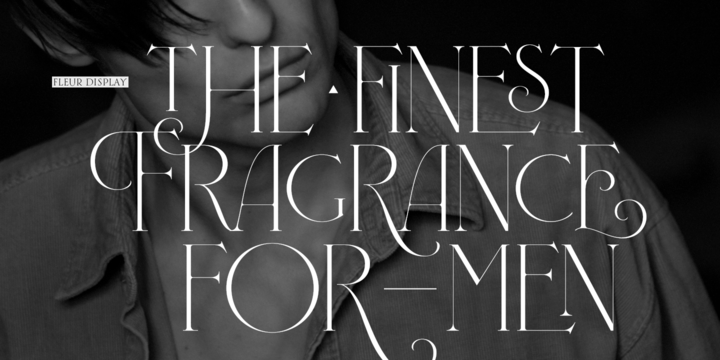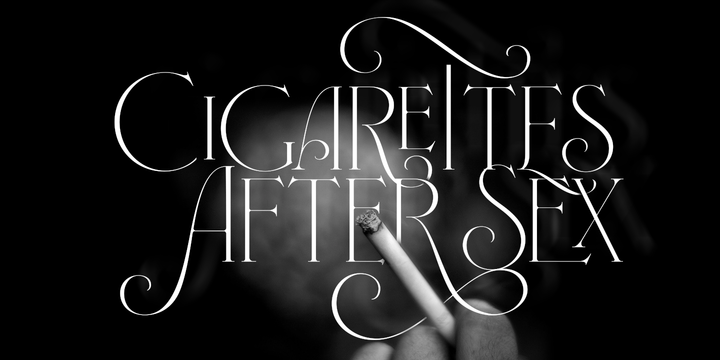
La vie est une fleur dont l'amour est le miel Fleur is the french for flower and I've chosen this language for a good reason.
Over the past 5 years, I've had the opportunity to travel a lot to Paris and I've always tried to to catch every moment, and detail of this delightful city through the eyes of the designer inside me.
Paris is full of surprises mainly for us, artists. In fact, I believe the city is a museum itself. Every corner of any street has something inspiring. But, theres something I particularly love and I want to address here: The Palais Garnier.
Built between 1861 and 1875, this opera house is a dream made true for many of us, who love somptuosité.
Garnier, the architect of this magnificient building, said that the style he proposed was not Grecian nor Roman/baroque, he created something new and called it Napoleonic: Luxurious at its best.
Fleur is inspired in this palace which, in fact, has some similar letters inside.
Garnier put his name at the ceiling of the Rotonde des Abonnés: Letters are interlacing each other with nicely done art nouveau curves.
I thought I could take this idea and achieve something very delicate and imposing at the same time if the font consisted entirely of caps with the logic of a didone and a bit of art-nouveau.
This mix of elegance and flamboyance gave birth to Fleur which has a wide range of uses but was mainly intended for perfumes, fashion magazines, storefronts, book covers or logos.
Not only you'll find many decorative glyphs, but also a vast amount of unique ligatures will make you really adore this font.
Get Fleur and profite de la vie. More TECHNICAL As suggested above, the font has many open-type coded alternates and a vast amount of unique ligatures.